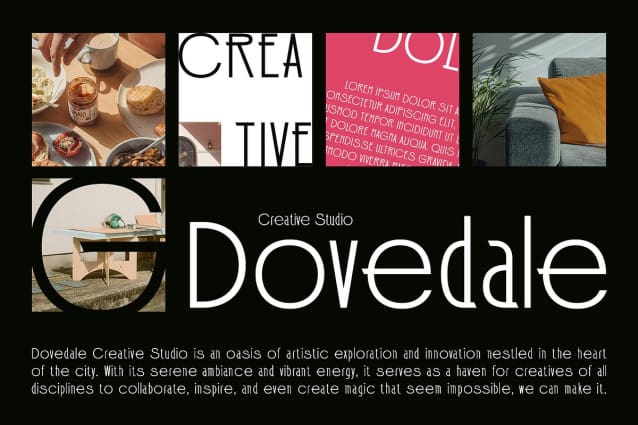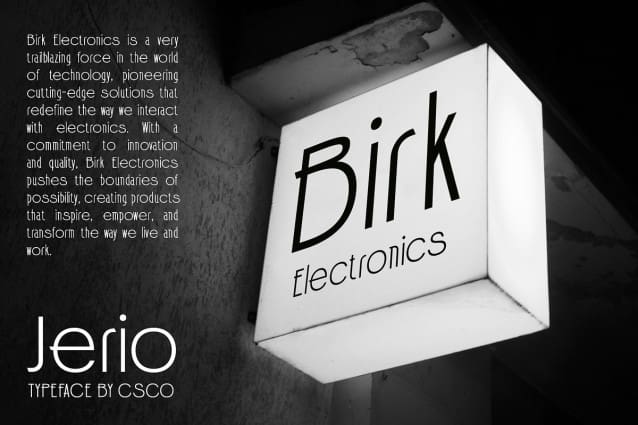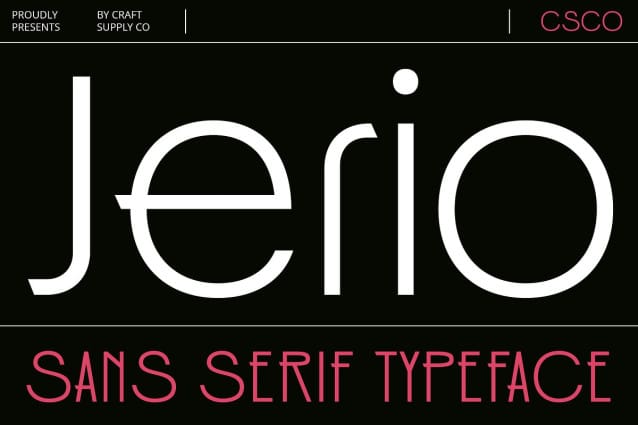
Jerio Font
Jerio Font – Modern Sans Serif is a sleek and contemporary font designed for professional environments. Its sans-serif design gives it a clean and modern look, making it perfect for a wide range of applications, from creative studios to corporate settings.
With its versatile design, Jerio Font is suitable for a variety of uses, including headlines, body text, and branding. Its modern style adds a touch of sophistication to any project, while its sans-serif details ensure a clean and streamlined look.
Jerio Font prioritizes readability, ensuring that your message is clear and easy to understand. Whether used in print or digital media, this font maintains legibility even at small sizes.
Whether you’re working in a creative studio or a corporate office, Jerio Font is the perfect choice for projects that require a modern and professional aesthetic. Its timeless design ensures that your work will always look stylish and up-to-date.